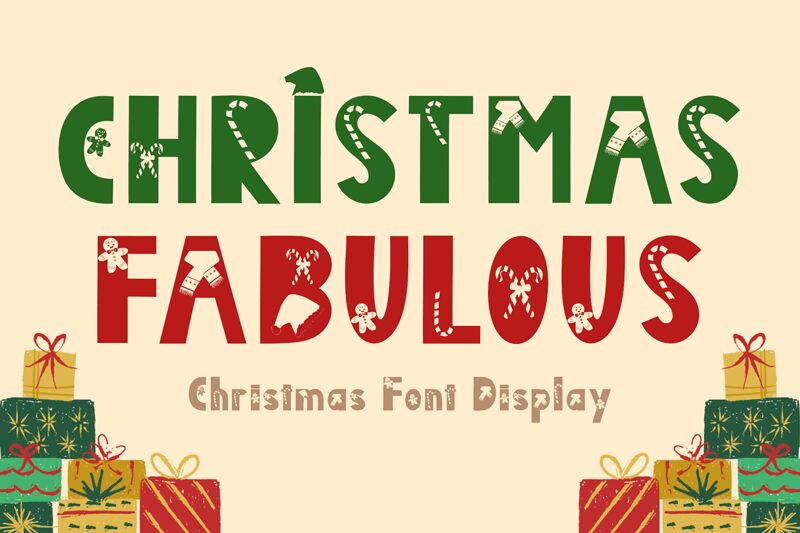
Christmas Fabulous font by Yoga Letter is a free holiday typeface that brings Christmas spirit to the forefront of your design. The unique display font includes special characters, illustrations, and festive typography that is as eye-catching as it encourages the holiday season.
Its lovingly designed ornamented letters are decorated with stars, zigzags, and Christmas symbols within the alphabet, an entertaining typeface that leaves no room for boredom. Have fun with the curvy display typeface and create casual holiday layouts with greeting cards, logos, branding designs, packaging, professional X-Mas wish posters, and other printed and digital designs.